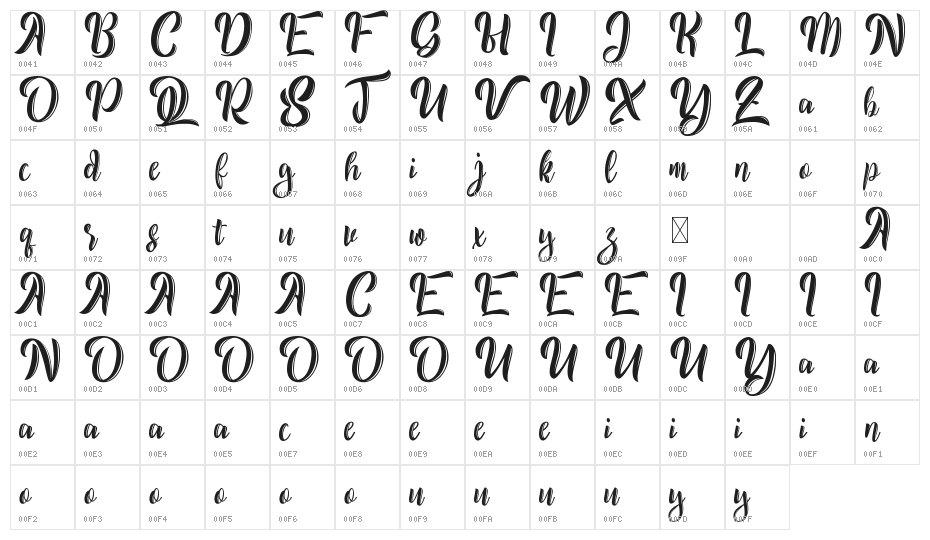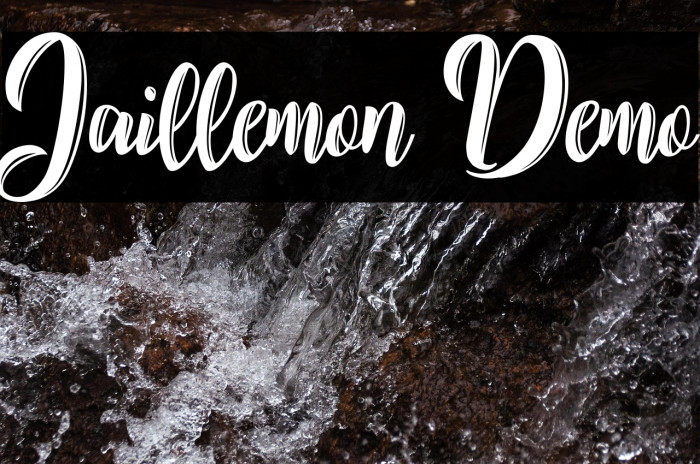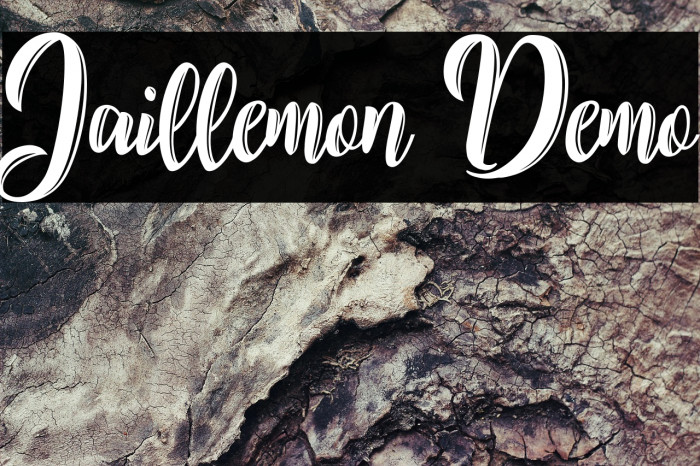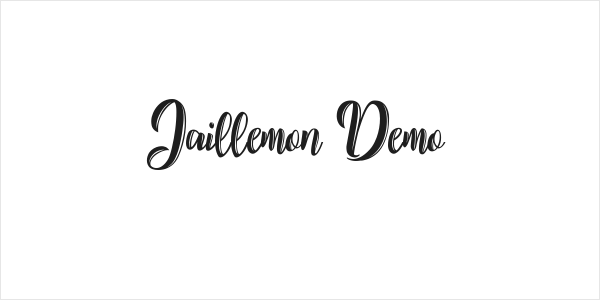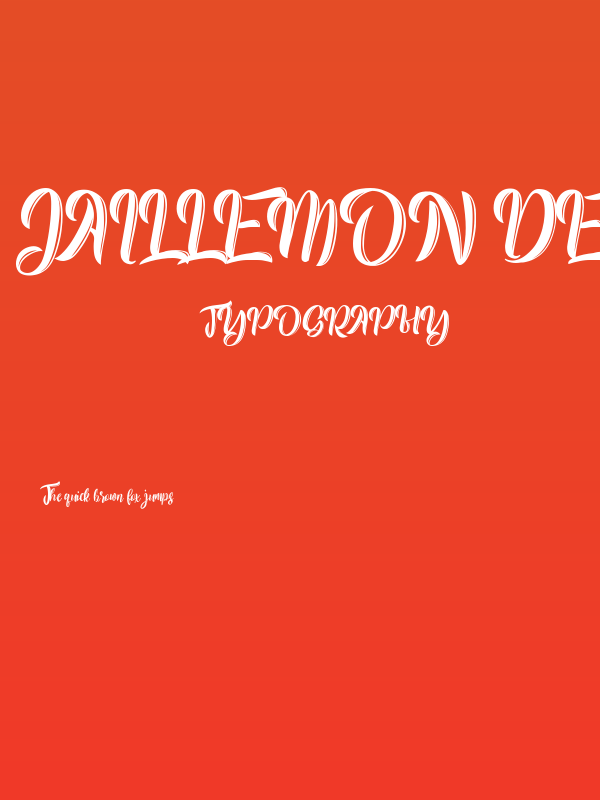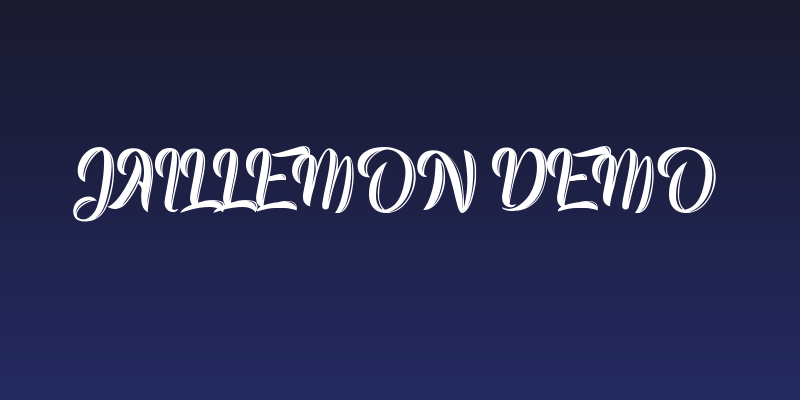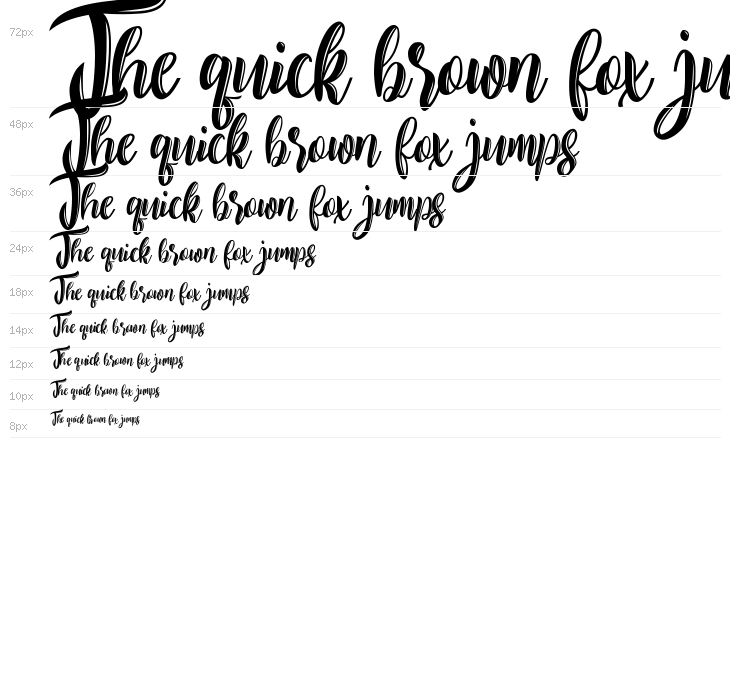
Jaillemon Demo Font
Jaillemon Demo Description
This font features a bold and dynamic script style with a modern flair. The characters are designed with a flowing, cursive appearance, showcasing elegant loops and swirls that give it a lively and energetic feel. The strokes are thick and consistent, providing a strong visual impact. Each letter is distinct yet harmoniously connected, making it suitable for creative and expressive designs. The uppercase letters are particularly striking, with exaggerated curves and flourishes, while the lowercase letters maintain a smooth and cohesive look. This font is ideal for projects that require a touch of sophistication and artistic flair.
| Proposed Projects | Ideal for branding, invitations, greeting cards, and artistic posters. |